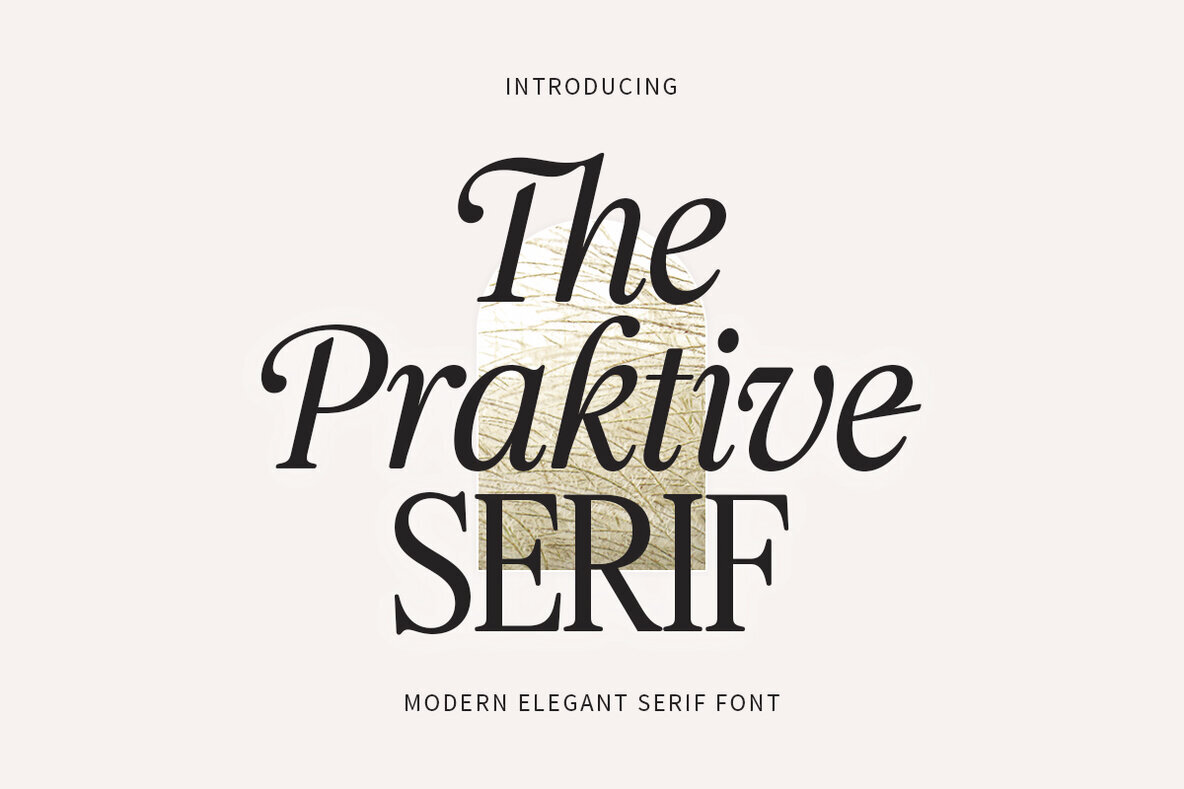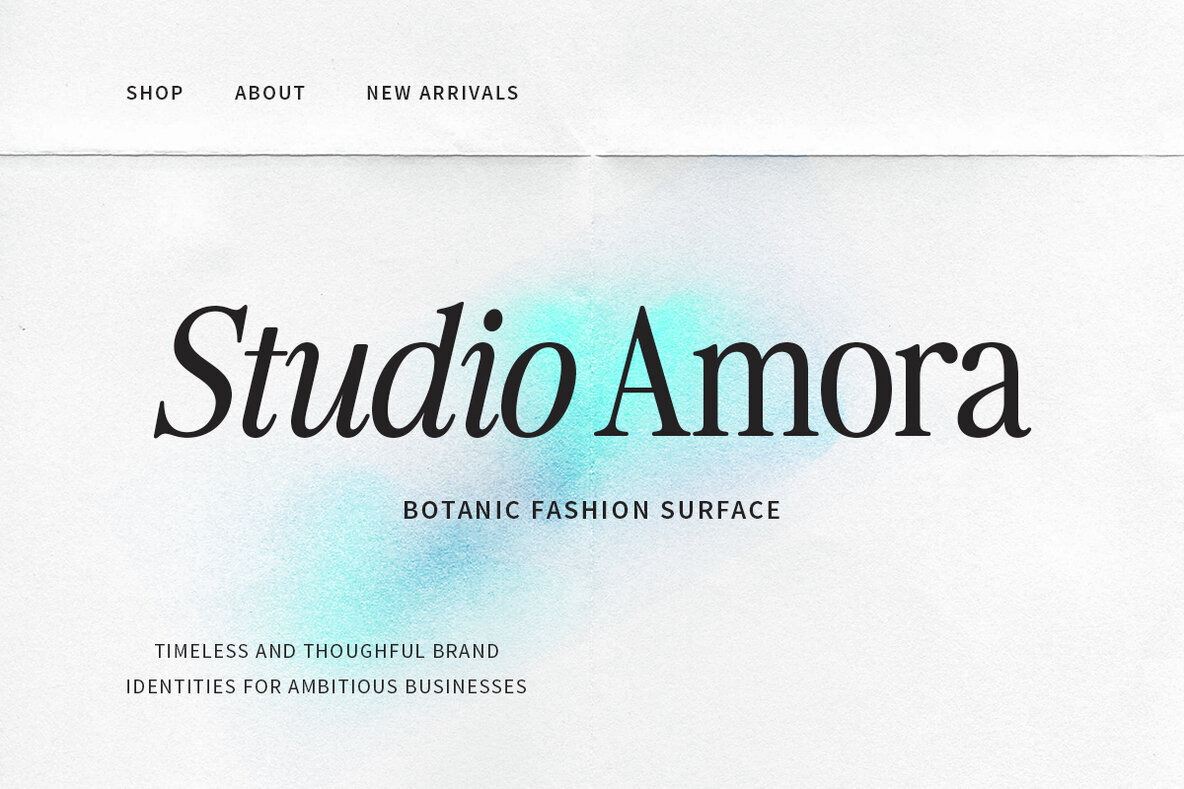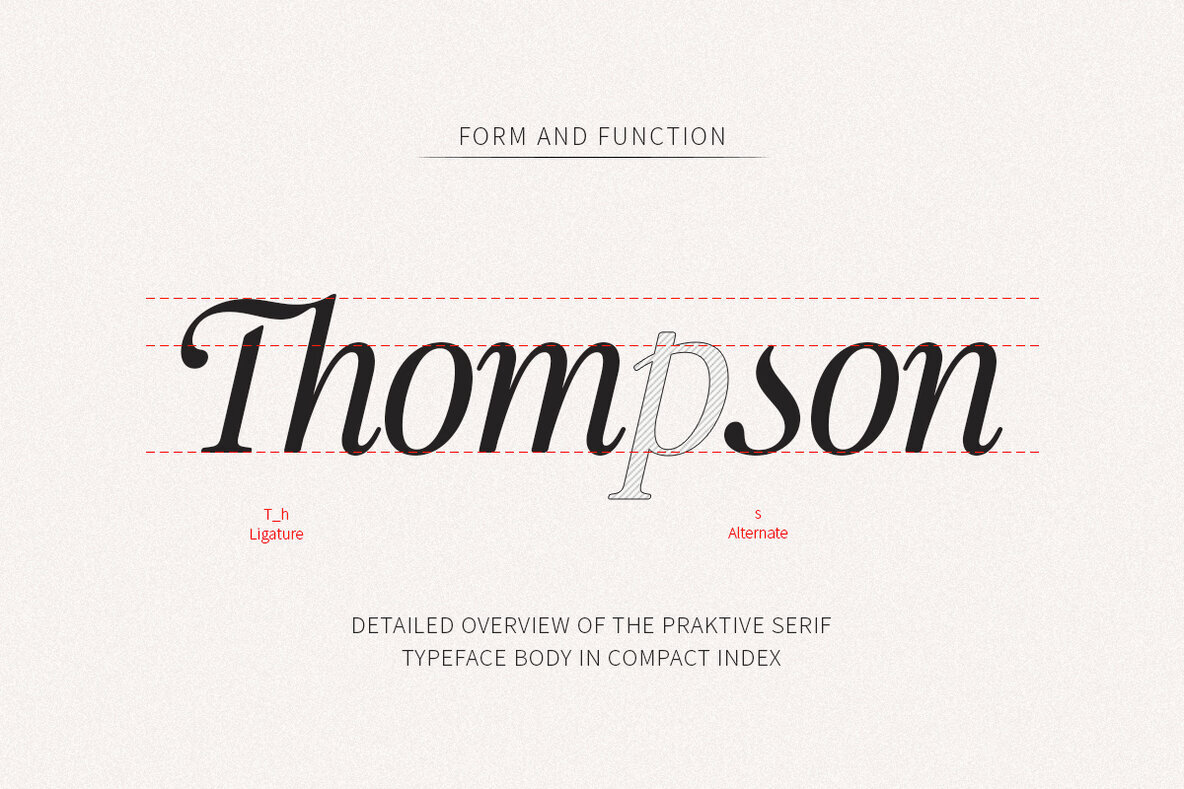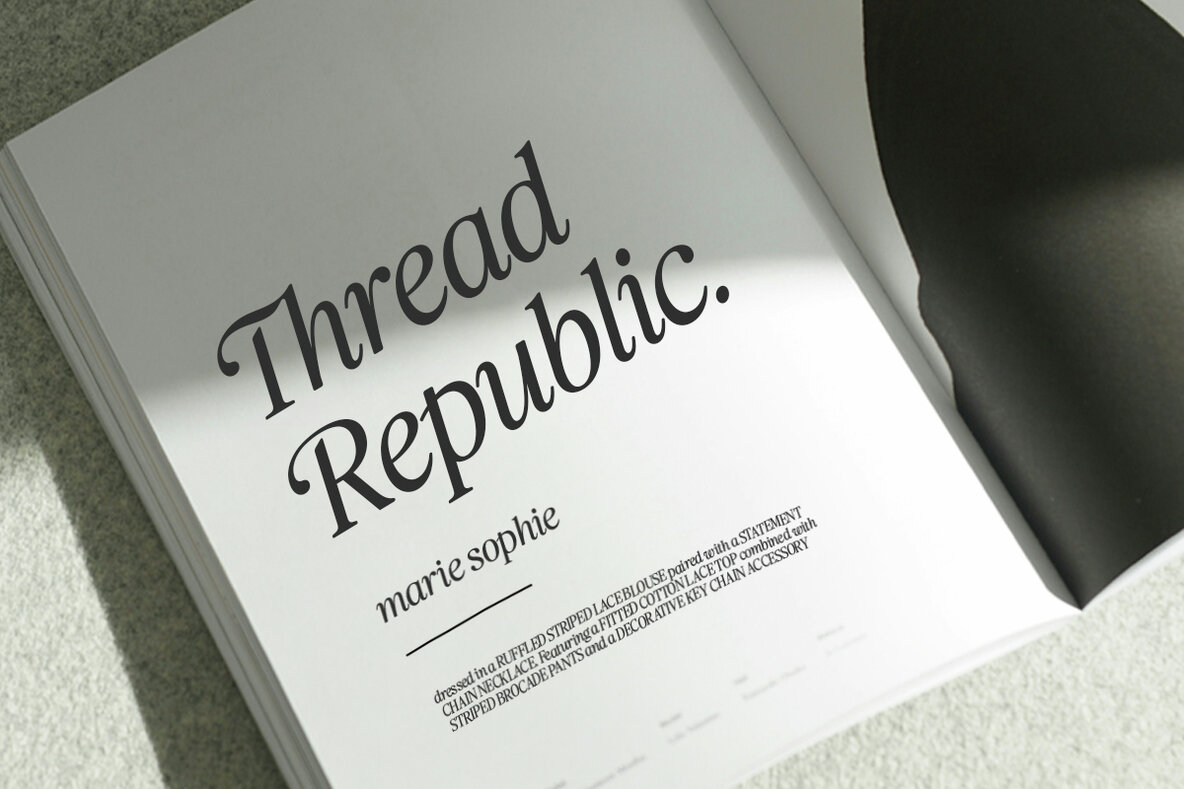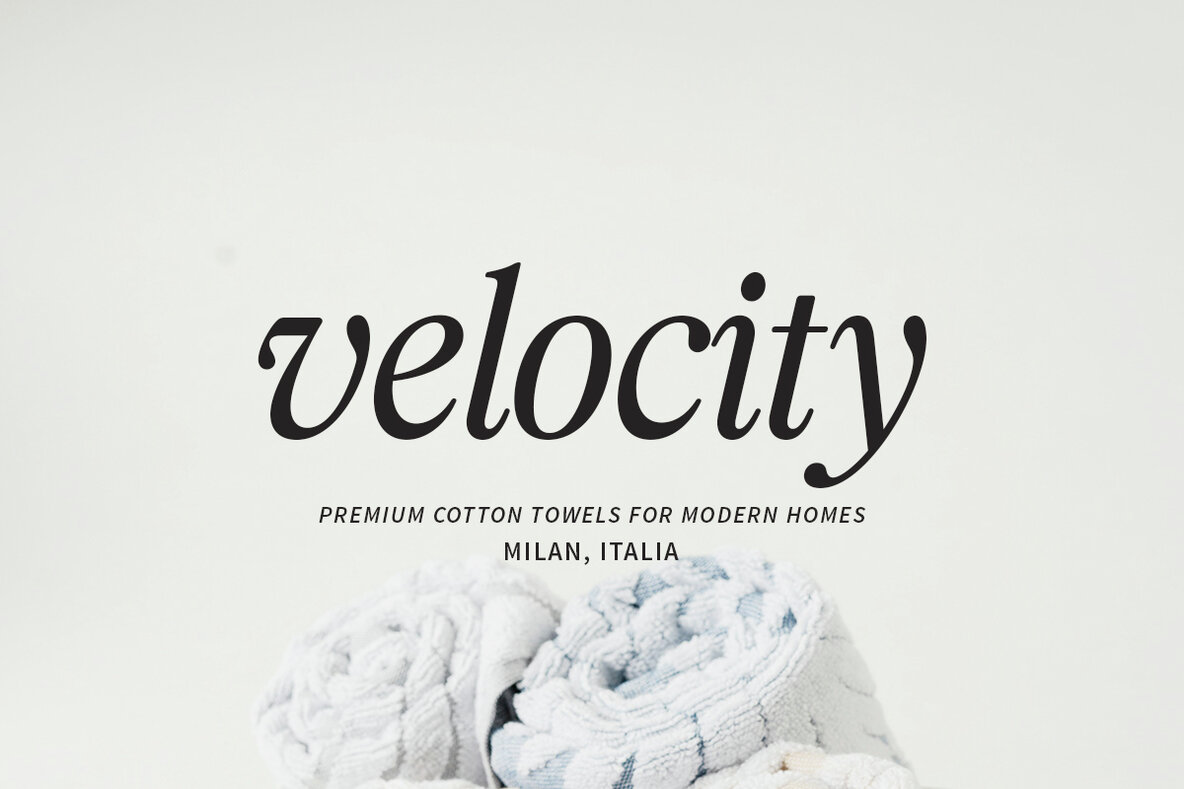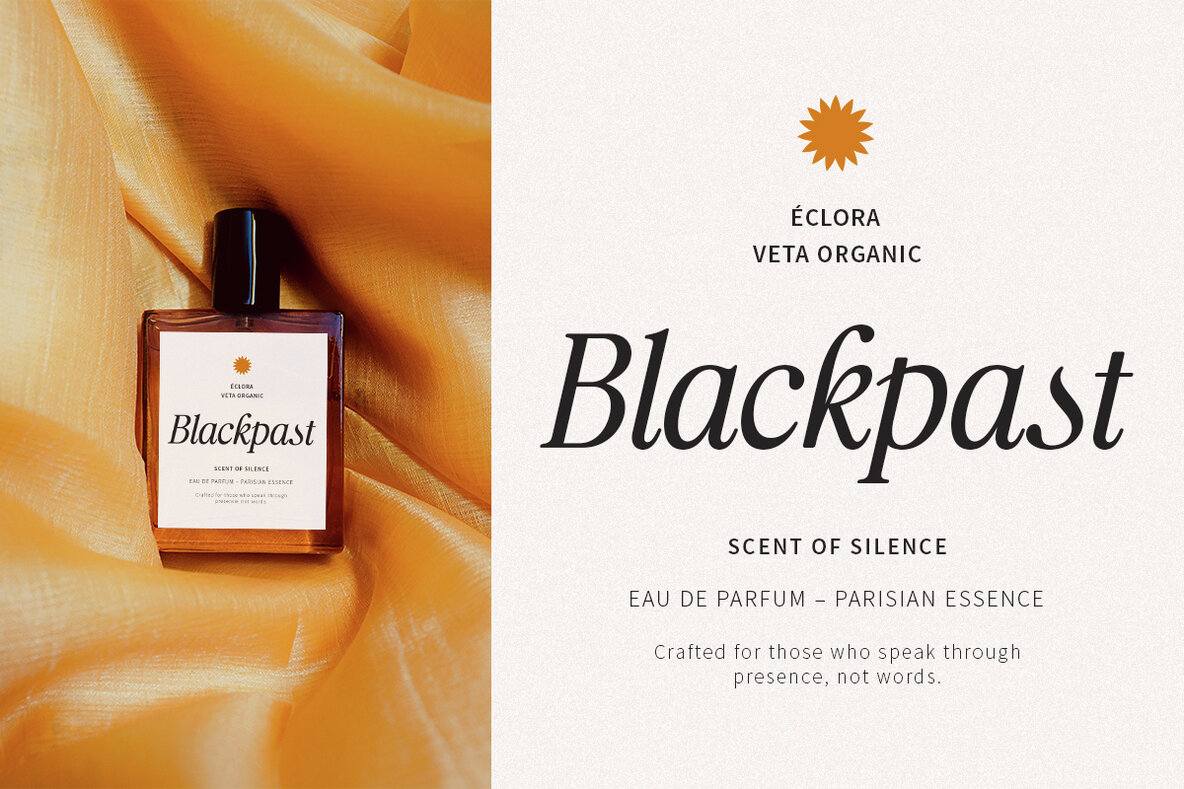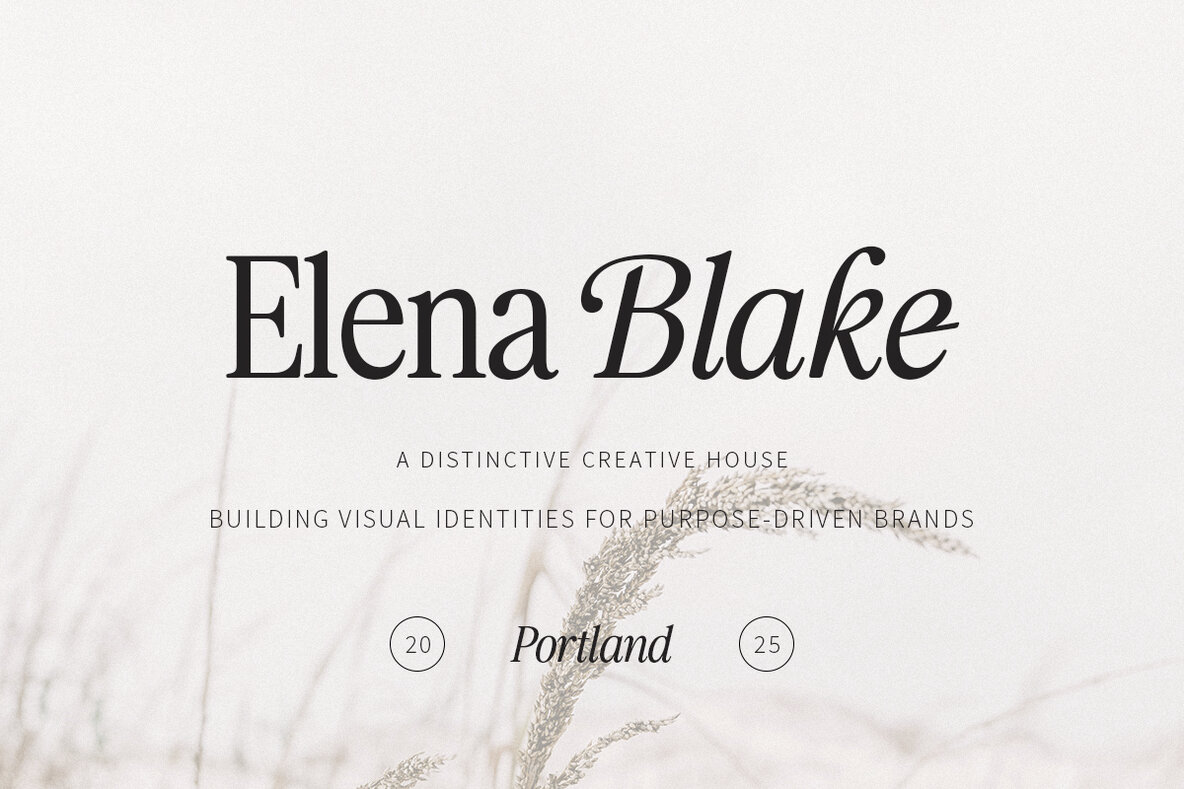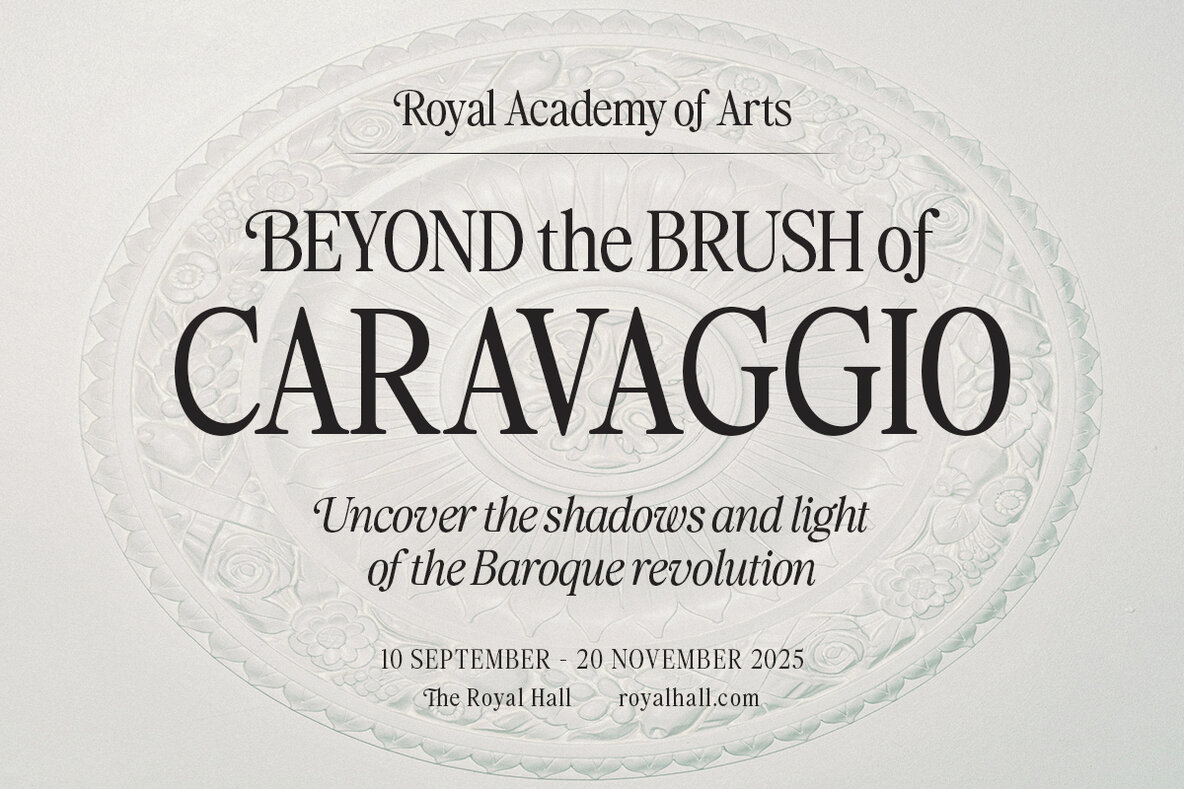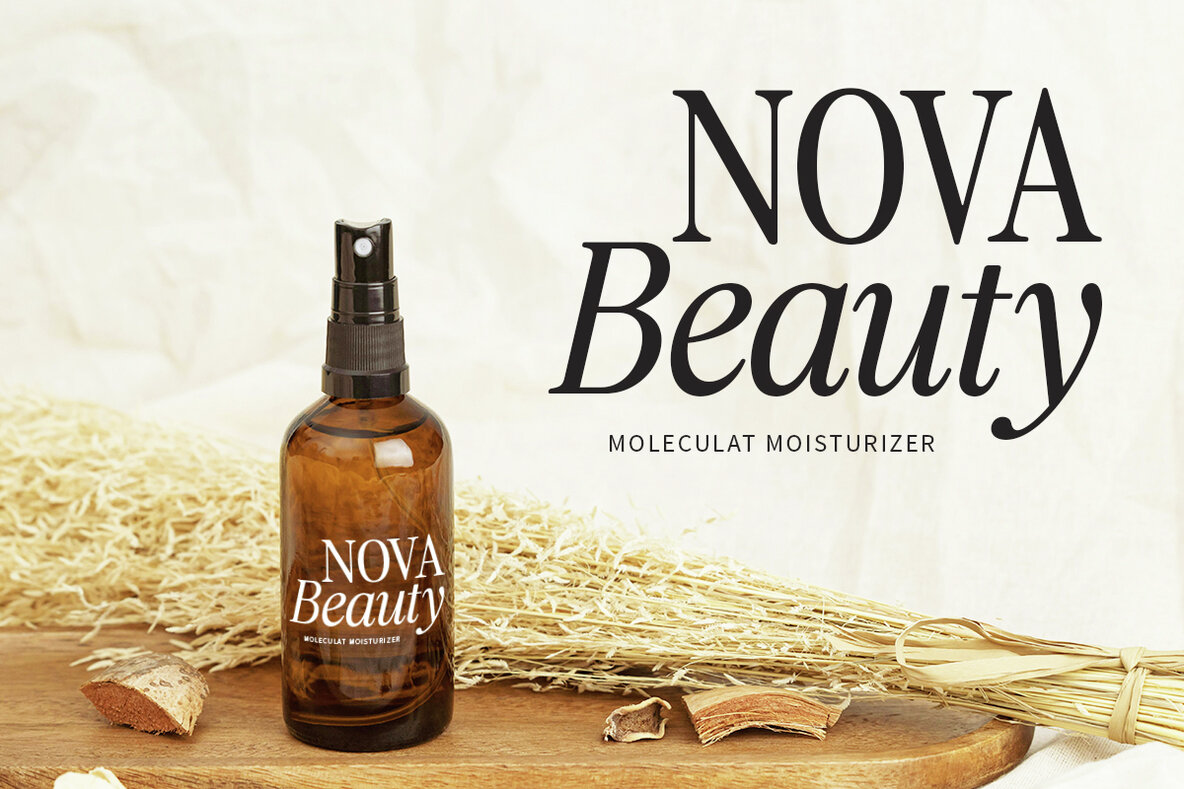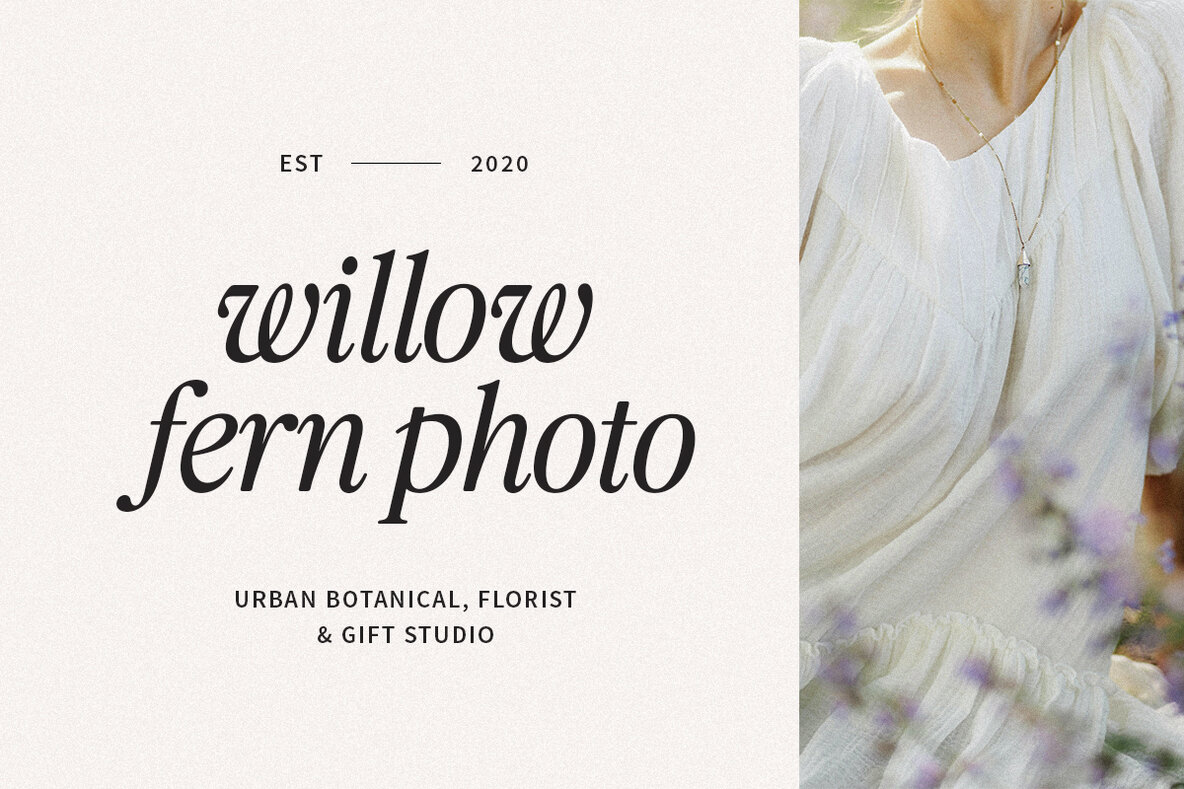
The Praktive Font
Praktive offers a blend of retro-modern aesthetics, reminiscent of early computer designs and 80s print advertisements. This typeface evokes nostalgia while maintaining a clean and sophisticated appearance, making it ideal for various creative endeavors. Embrace Praktive in your design work to celebrate the past while engaging with today's trends.Praktive: Nostalgic Typeface With Modern Elegance
Application Versatility